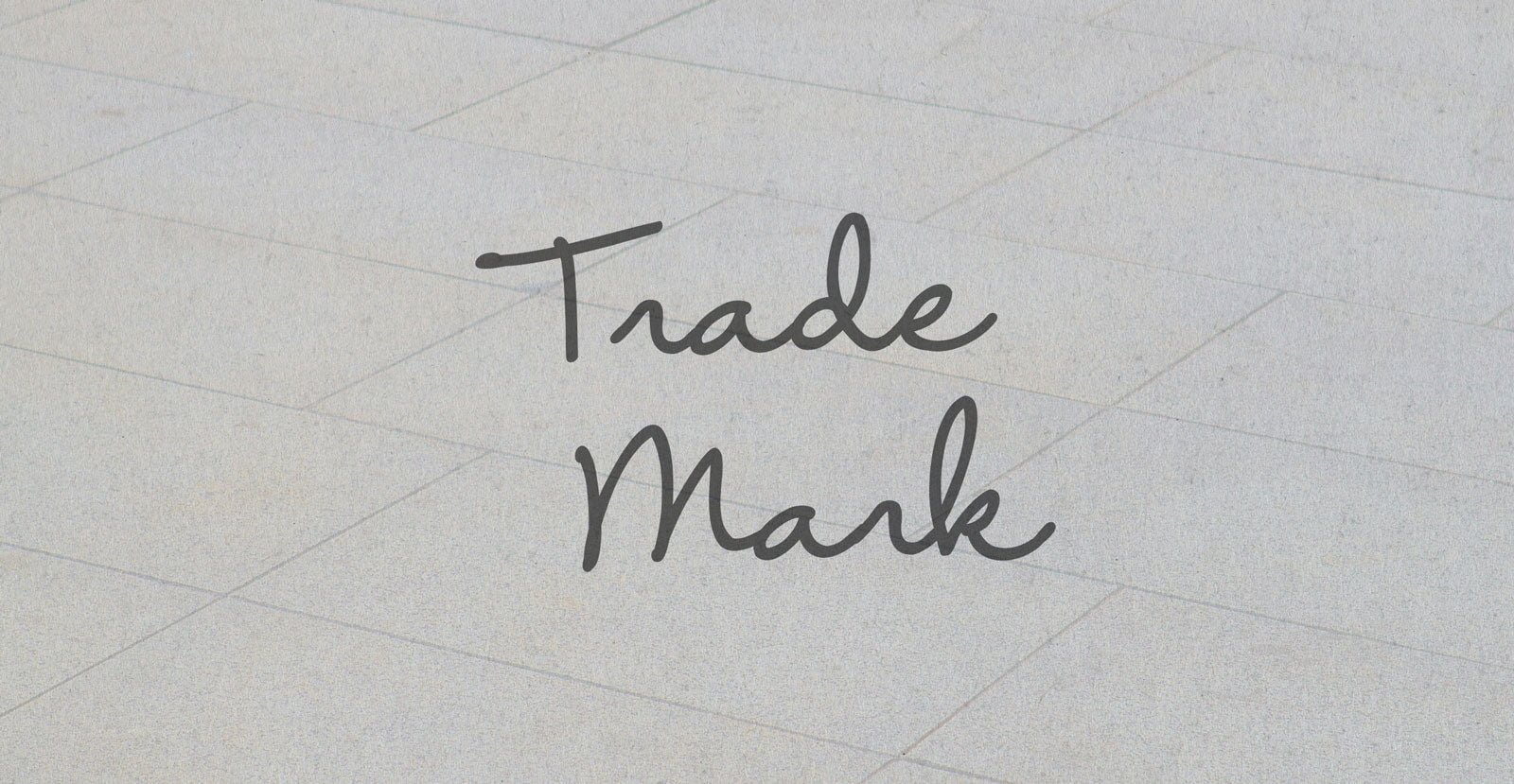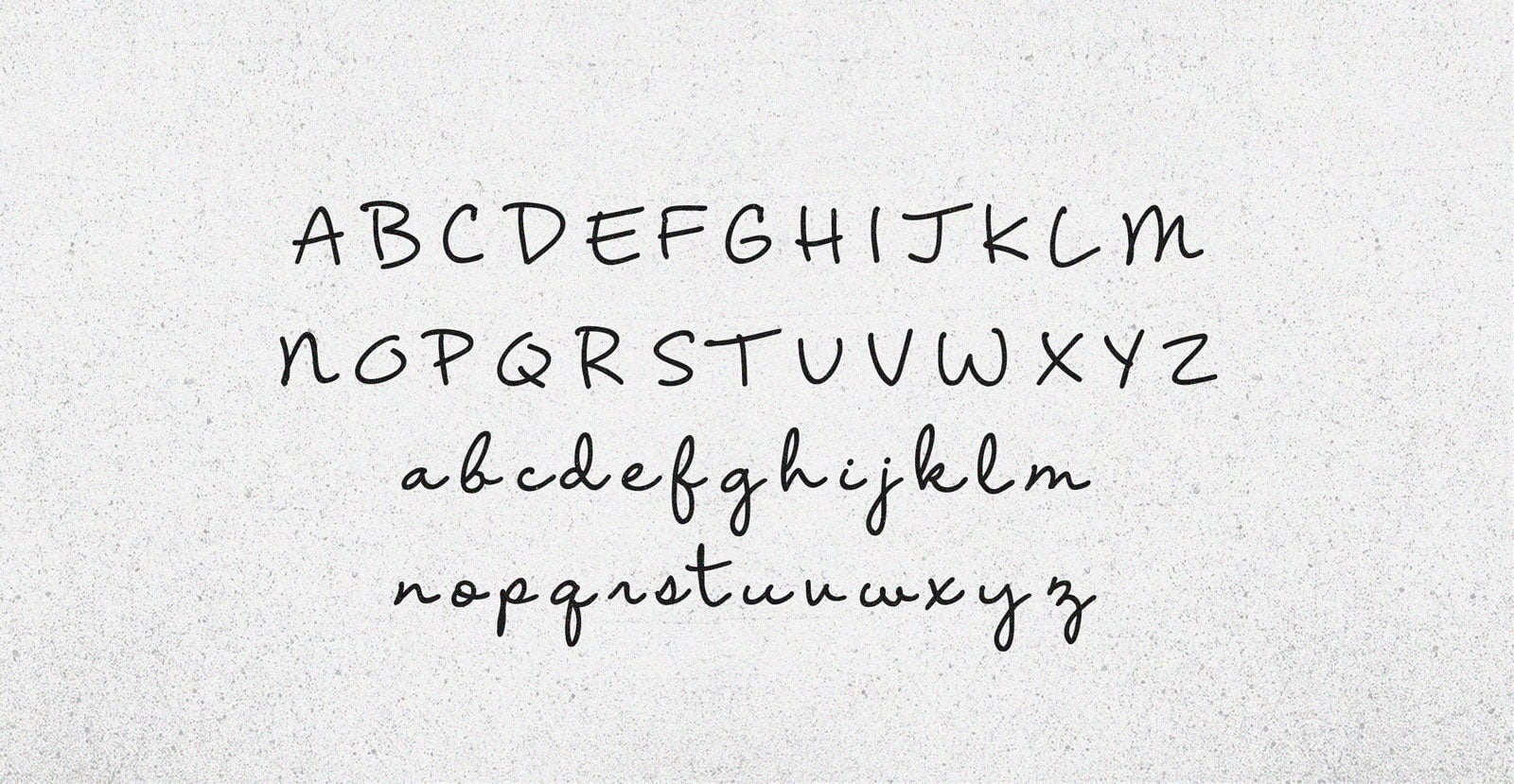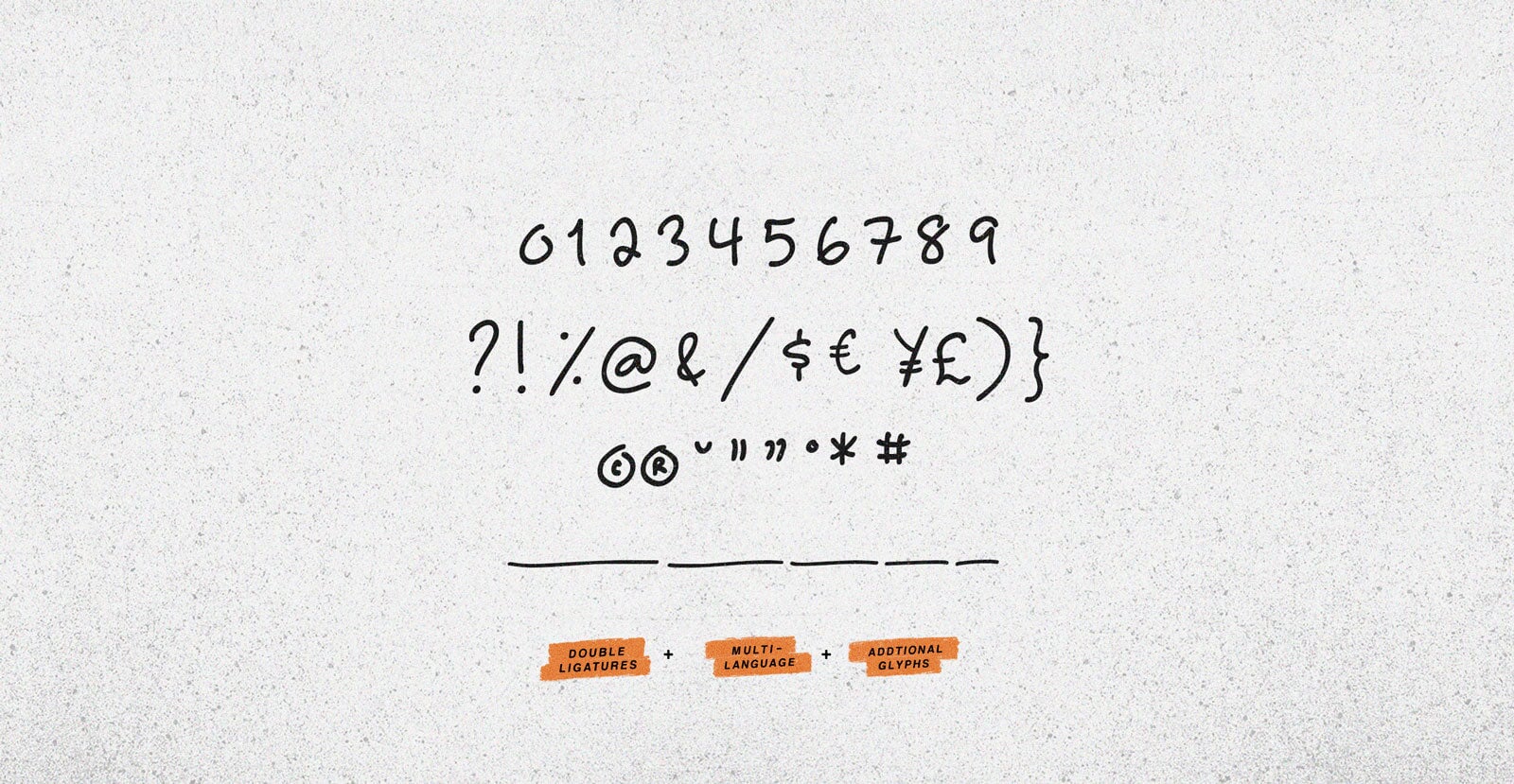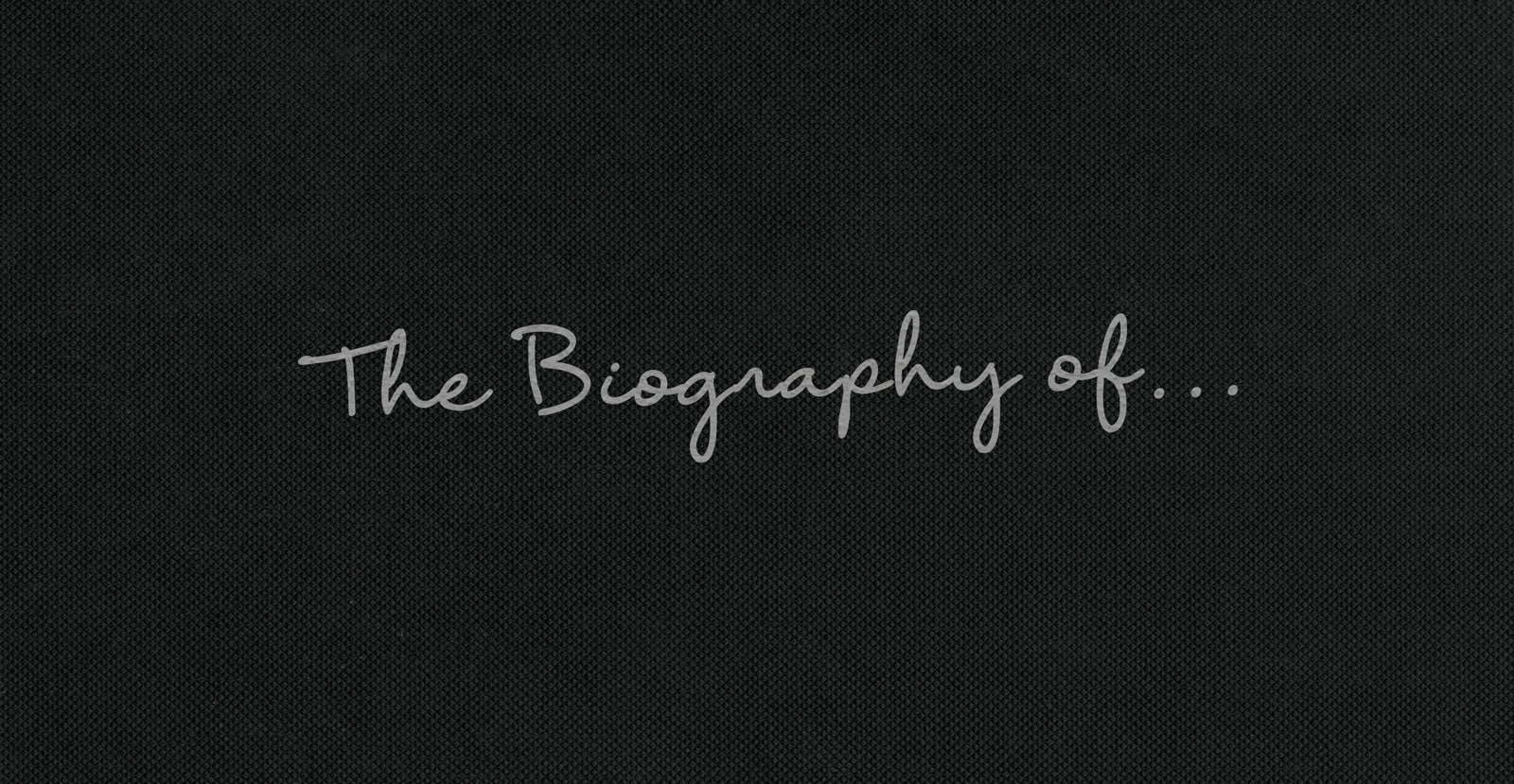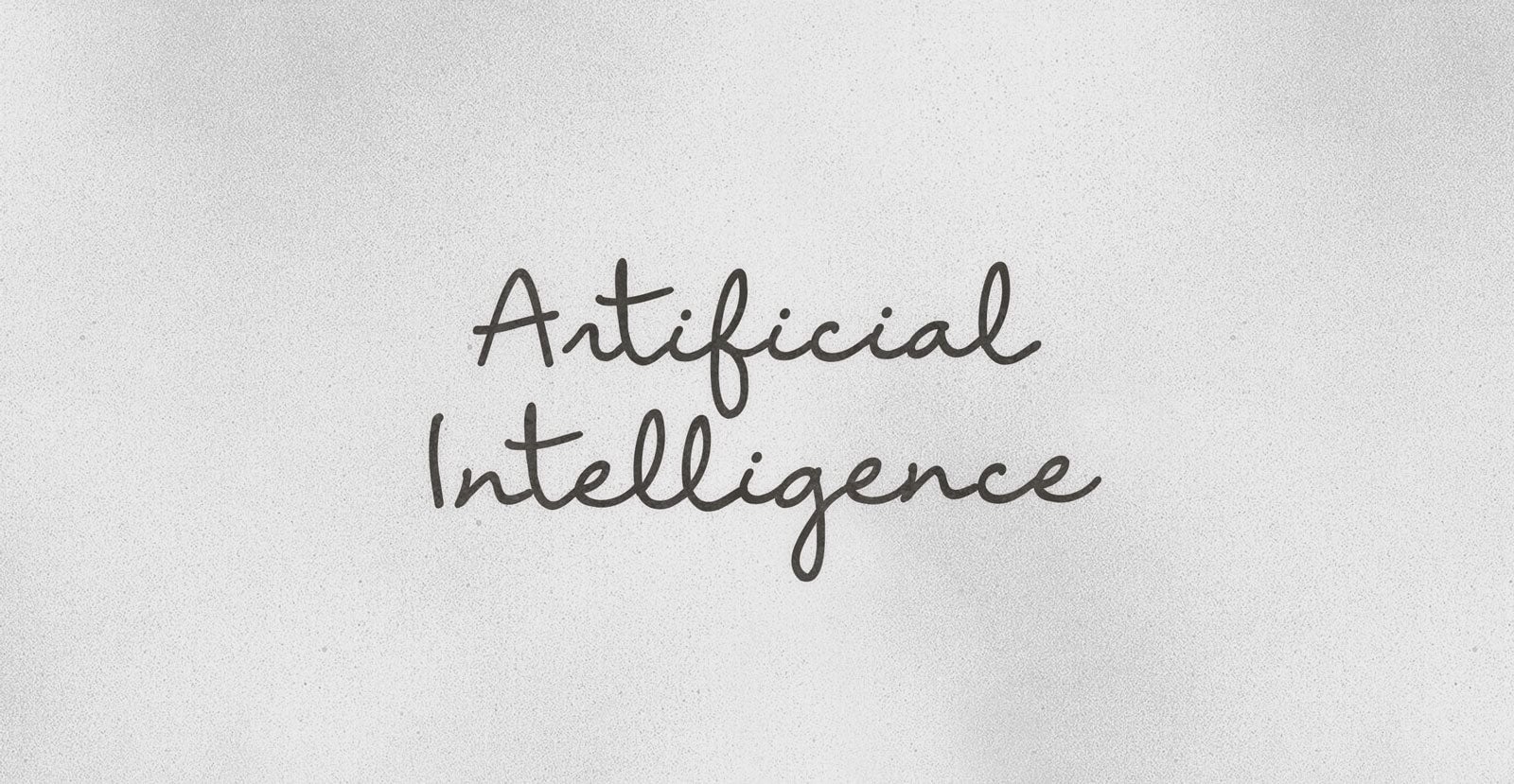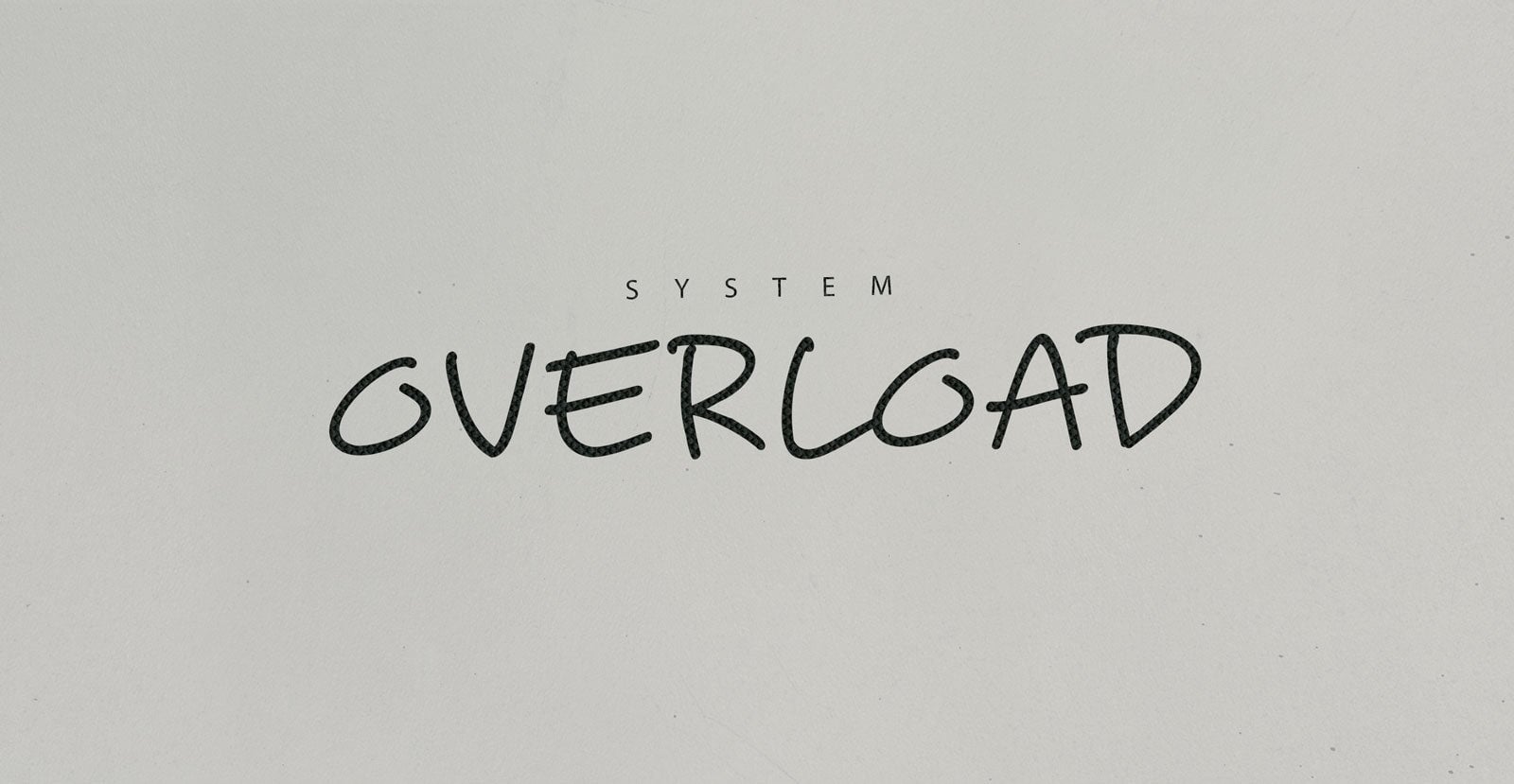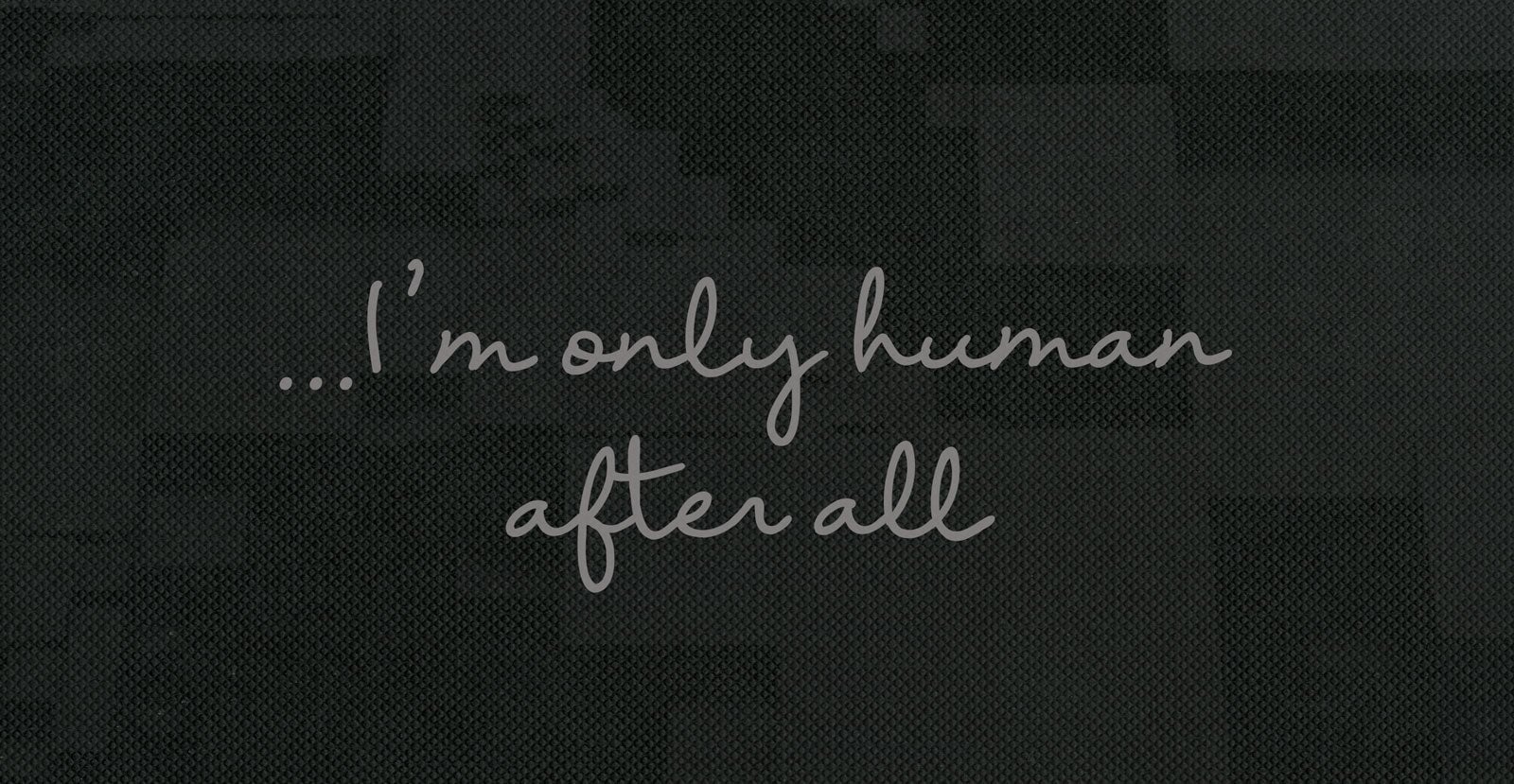
Trade Mark
Handwritten Pen Script Font
Trade Mark speaks in straight lines and quiet confidence—precise, grounded, and unmistakable. It doesn’t chase attention; it earns it. Built for recognition, made to last, it leaves a clear impression without saying too much.